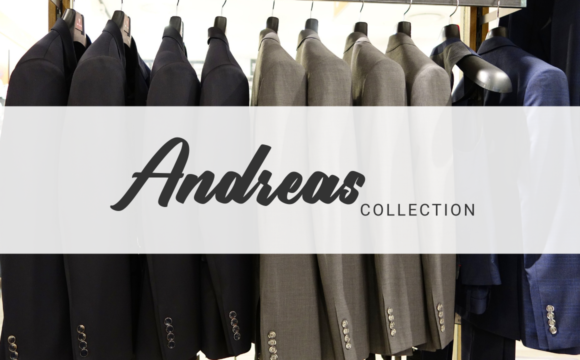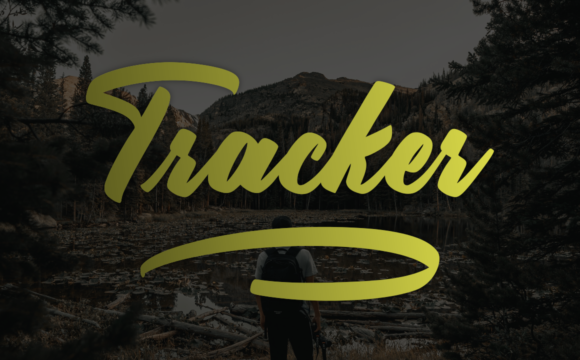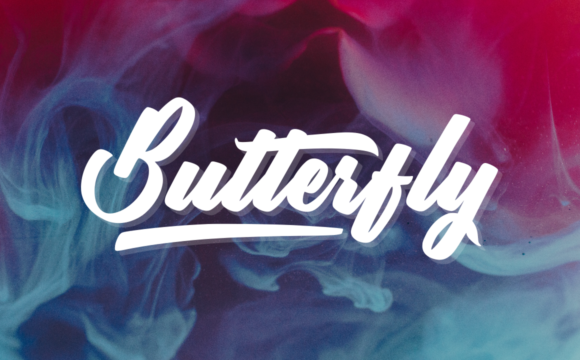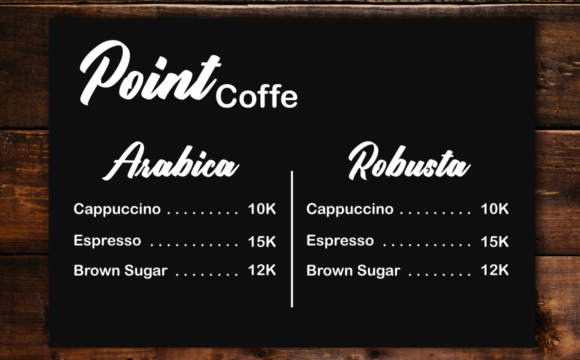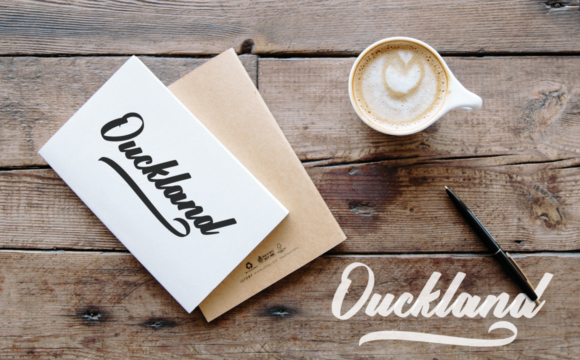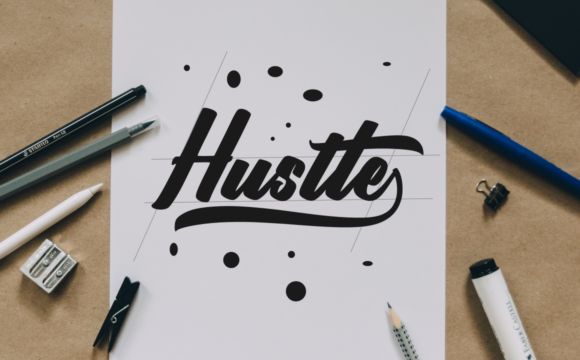
Introduction to Jandha Font
Have you ever been in the midst of a creative project, staring at a blank canvas or a blank document, wondering how to bring your vision to life? That’s exactly where I found myself last week, searching for the perfect font to match my design idea. And then, I stumbled upon it – the Jandha Font. Its modern and stylish script design instantly caught my attention, and I knew I had to share it with fellow designers.
As a valuable design resource, the Jandha Font offers a unique blend of vintage and modern flair, making it perfect for any creative project. With its high-quality design and transparent background, it’s a versatile tool that can be used in a variety of applications, from branding and advertising to digital design and more. And the best part? It’s available for free download, making it an accessible addition to any designer’s toolkit.
Whether you’re a seasoned pro or just starting out, the Jandha Font is sure to inspire your next creative project. So why not give it a try and see how it can elevate your designs to the next level?
Key Features of Jandha Font
- High-quality vector design for seamless scalability, making it ideal for large creative projects.
- Unique, hand-drawn style that adds a touch of personality to any creative project.
Honest Review: Jandha Font
As a designer, I’m always on the lookout for high-quality design resources to elevate my creative projects. Recently, I stumbled upon the Jandha Font, and I’m excited to share my honest review with you.
What works well: ✨ The Jandha Font is incredibly versatile, suitable for a wide range of design projects, from logos to typography. The font is available for free download, making it an excellent resource for designers on a budget. I also appreciate the transparent background, which makes it easy to combine with other design elements.
Limitations: ⚠️ The Jandha Font is not as extensive as some other font libraries, with a limited range of styles and weights. Additionally, some users may find the font’s design to be a bit too minimalist for certain projects.
Overall, I’m impressed with the Jandha Font’s quality and versatility. While it may have some limitations, it’s an excellent resource for designers looking for a high-quality, free font for their creative projects.
Tips for Getting the Most Out of Jandha Font
For high-quality results, use the Jandha Font on a transparent background to give your design a clean and modern look. You can also experiment with different font sizes, colors, and combinations to create a unique design resource.
Common Use Cases for Jandha Font
The Jandha Font is perfect for creative projects that require a unique and stylish touch. Use it for headings, titles, or even as a design element in your presentation, document, or website.